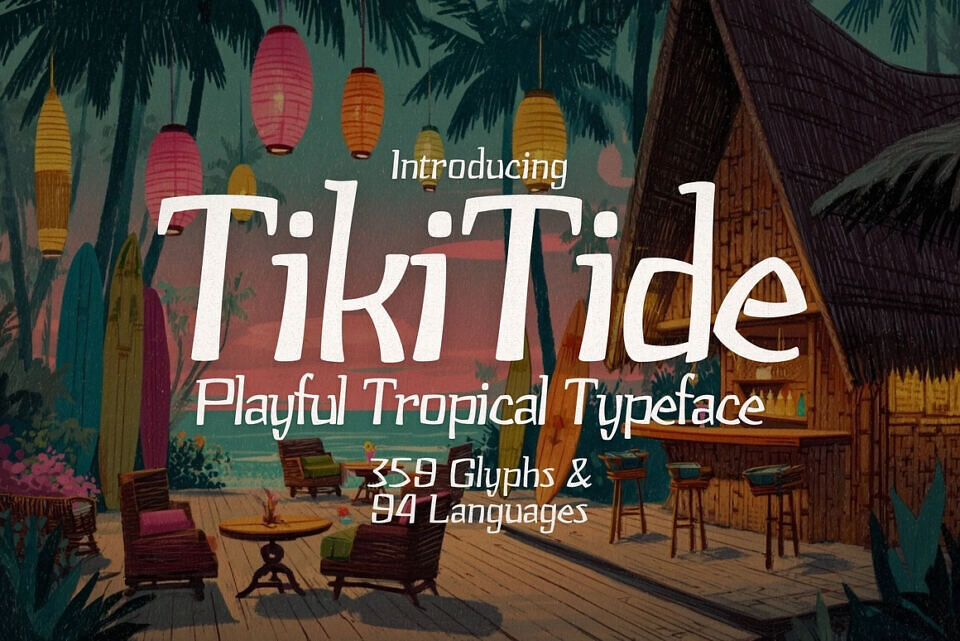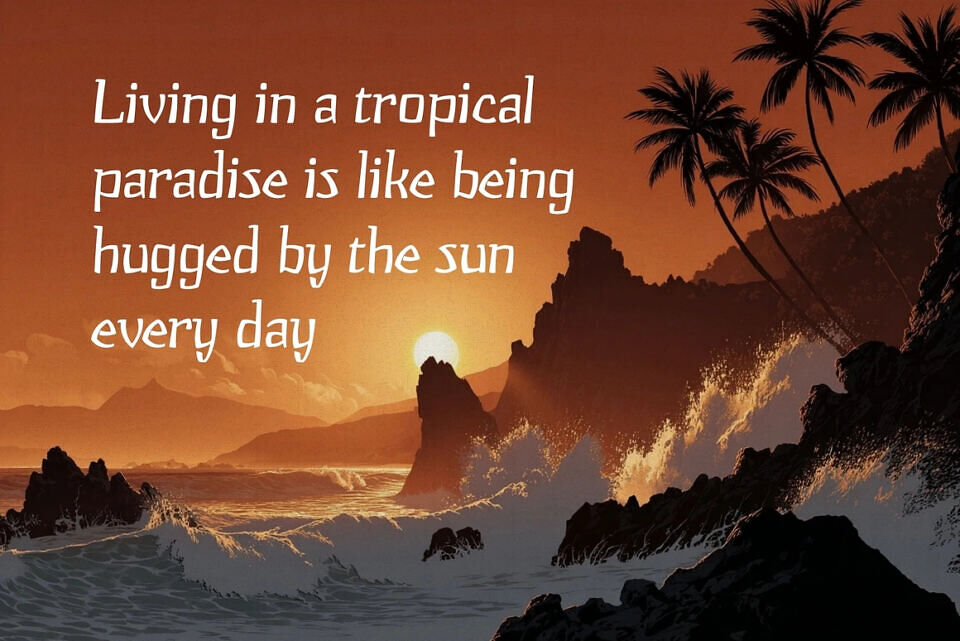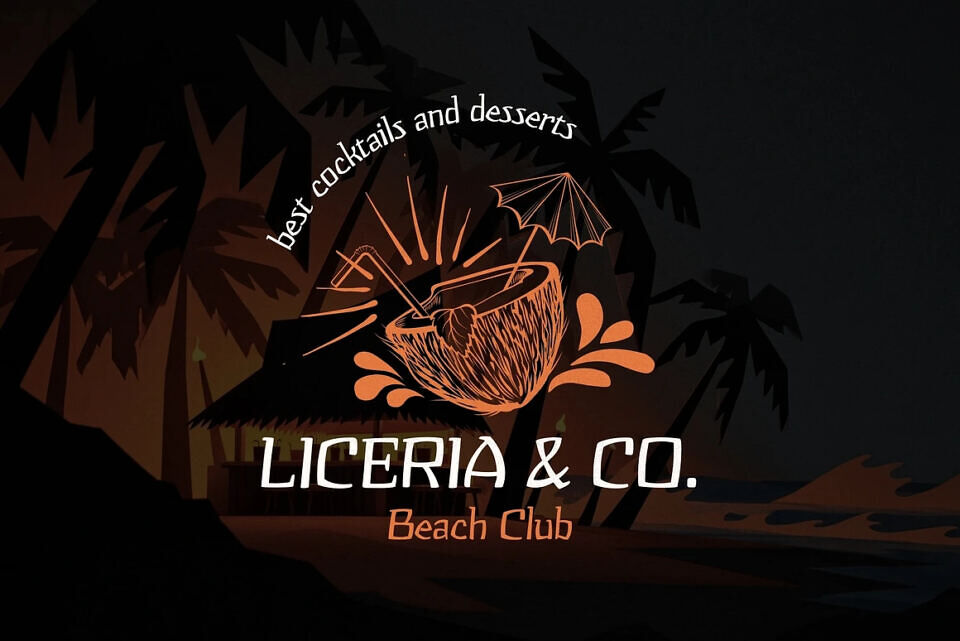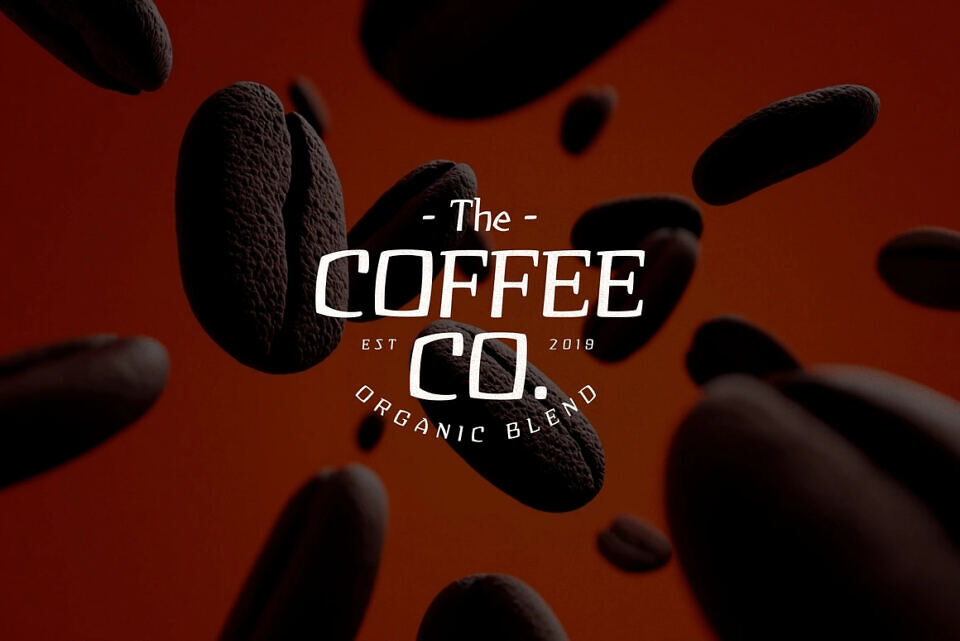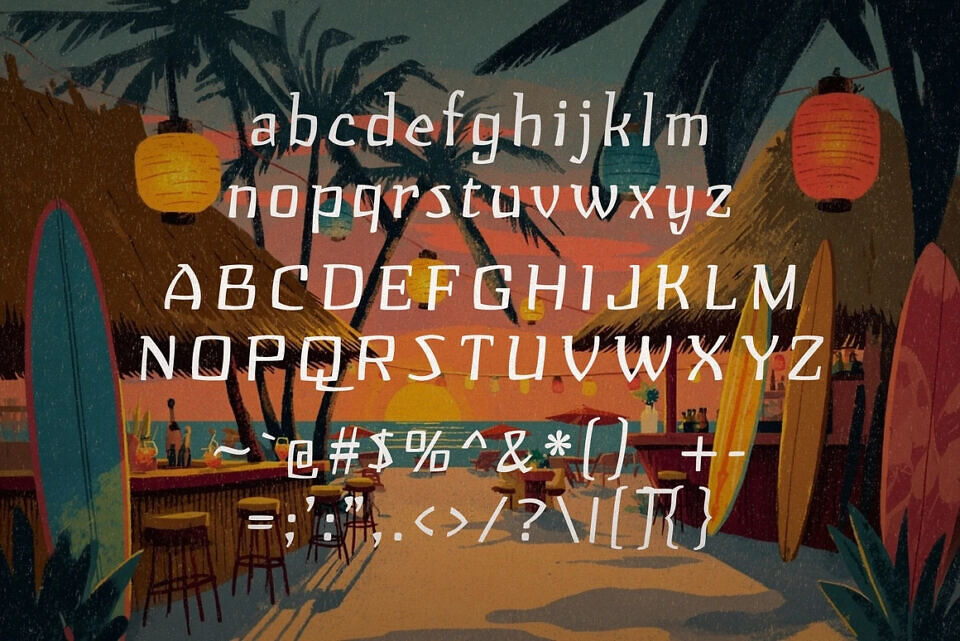
Tiki-Tide Font
Transport your designs straight to the islands with Tiki Tide, a vibrant and organic Hawaiian-inspired font that radiates laid-back tropical vibes. Handcrafted with a natural flow, this typeface captures the essence of paradise—sun-kissed beaches, swaying palm trees, refreshing cocktails, and the rhythm of island life.
Perfect for summer branding, beach party invites, travel posters, apparel design, logos, and anything that needs a splash of aloha spirit, Tiki Tide brings warmth and playfulness to every project. Its bold yet organic strokes feel alive and authentic, giving your work the breezy charm of a Polynesian escape.